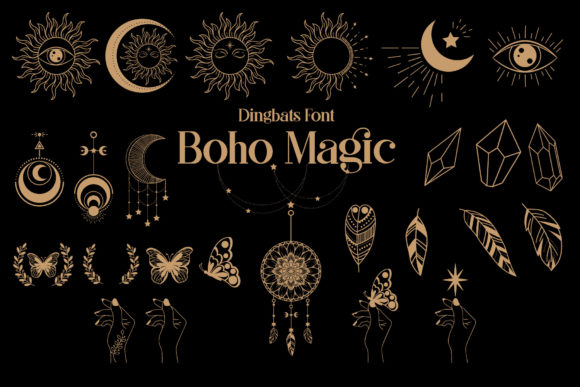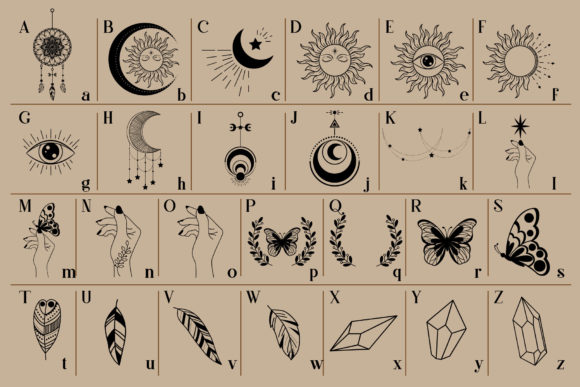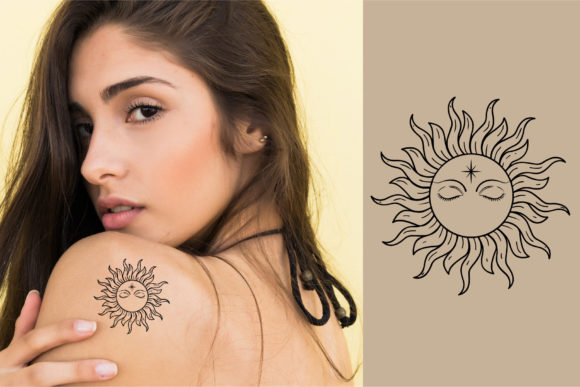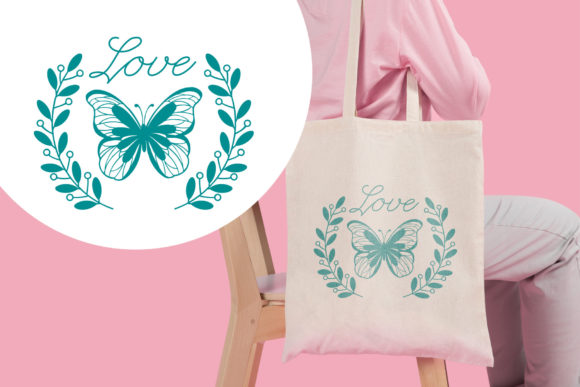
Boho Magic Font
About Boho Magic Font
Boho Magic is a captivating and unique dingbats font designed in a bohemian style. With its intricate and artistic designs, this font is perfect for adding a touch of boho charm to your creative projects. Whether you’re working on tattoos, wedding cards, or designs for various printed items like shirts, bags, mugs, and more, Boho Magic will elevate your designs and make them truly magical.
The distinct and intricate glyphs of Boho Magic allow you to create visually stunning compositions effortlessly. Each letter, number, and symbol in the font represents a unique bohemian element, such as feathers, dreamcatchers, mandalas, arrows, and more. By simply typing, you can bring these enchanting designs to life and incorporate them into your projects.
One of the great advantages of Boho Magic is its versatility. The font’s bohemian style is highly sought after and works well in a wide range of design applications. You can use it to create unique and personalized tattoos, expressing your individuality with the intricate boho-inspired motifs. Wedding cards designed with Boho Magic will have a whimsical and romantic flair, perfect for boho or rustic-themed weddings.
Boho Magic is also an excellent choice for designing printed items. Imagine the captivating bohemian patterns adorning shirts, bags, mugs, and other merchandise. The font’s unique glyphs will add a touch of boho magic to these items, making them stand out and catch the eye of those who appreciate the bohemian aesthetic.
In addition to tattoos, wedding cards, and printed items, Boho Magic can be used in various other design projects. It works well in creating bohemian-inspired logos, website headers, social media graphics, and even home decor elements like wall art or decorative pillows.
When working with Boho Magic, don’t be afraid to experiment and combine different glyphs to create your own unique compositions. Adjust the size, color, and placement of the elements to achieve the desired effect. The font’s intricate details and artistic flair will add depth and beauty to your designs, making them truly magical.
In summary, Boho Magic is a captivating and unique dingbats font that brings the bohemian spirit to your projects. With its intricate designs and versatile applications, this font is perfect for tattoos, wedding cards, and designs for printing on various items. Let Boho Magic infuse your designs with a touch of bohemian charm and create something truly magical.